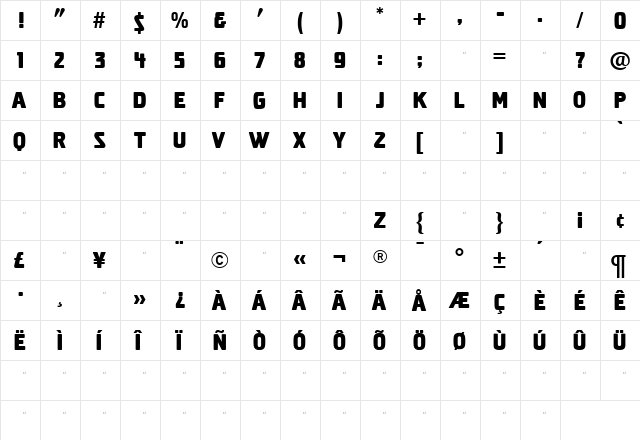
ElstonBold Roman Font Preview
ElstonBold Roman
Design Context for ElstonBold Typeface
ElstonBold is a composed and adaptable typeface that performs quietly and consistently across a wide range of design contexts. The heavy weight commands attention and anchors typographic hierarchies.